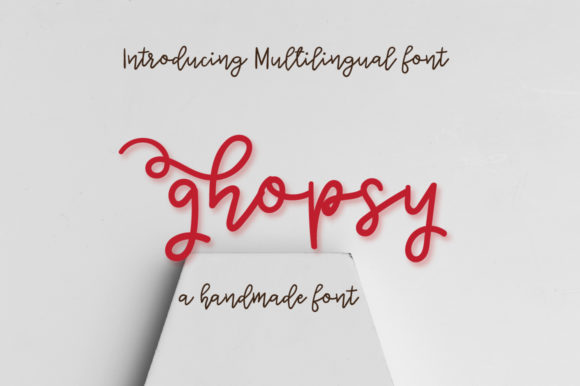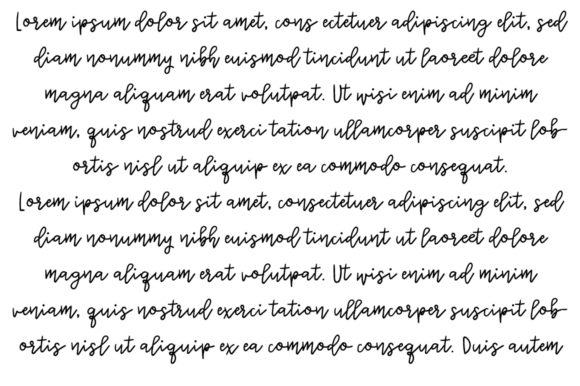
HomeScript FontsGhopsy Font Script Fonts Ghopsy Font FacebookXPinterestWhatsApp Ghopsy Font Poster 2 About Ghopsy Font Ghopsy is a kooky and fun handwritten font with a unique feel! DOWNLOAD ON CREATIVE FABRICAThis font is sold and delivered by Creative Fabrica. Font Canyon may earn a commission if you buy through this link. People also explored Sweep Font Outside Font Farland Font Mallona Font Be Bold Font Sweet Katty Font Hip Hop Dance Font Cashew Apple Ale Bold Font Zodiastic 321 0 TagsGhopsy Font Previous articleFusewe FontNext articleMarline Font LEAVE A REPLY Cancel reply Comment: Please enter your comment! Name:* Please enter your name here Email:* You have entered an incorrect email address! Please enter your email address here Website: Save my name, email, and website in this browser for the next time I comment. Personal Use Free Angelika Playful Personal Use Free Read more about this font Free Personal Use Free Read more about this font Vanilla Whale Personal Use Free Read more about this font Zelega Zenega Personal Use Free Read more about this font BLOG Free vs Paid Fonts: Why Investing in Premium Fonts Is Worth It Free vs Paid Fonts: Why Premium Fonts Are Worth It in 2025 The debate of free vs paid fonts continues in the design world. While... Where to Buy American Fonts Online in 2024 Best Fonts for YouTube Videos: Make Your Thumbnails Stand Out Exploring Font Trends